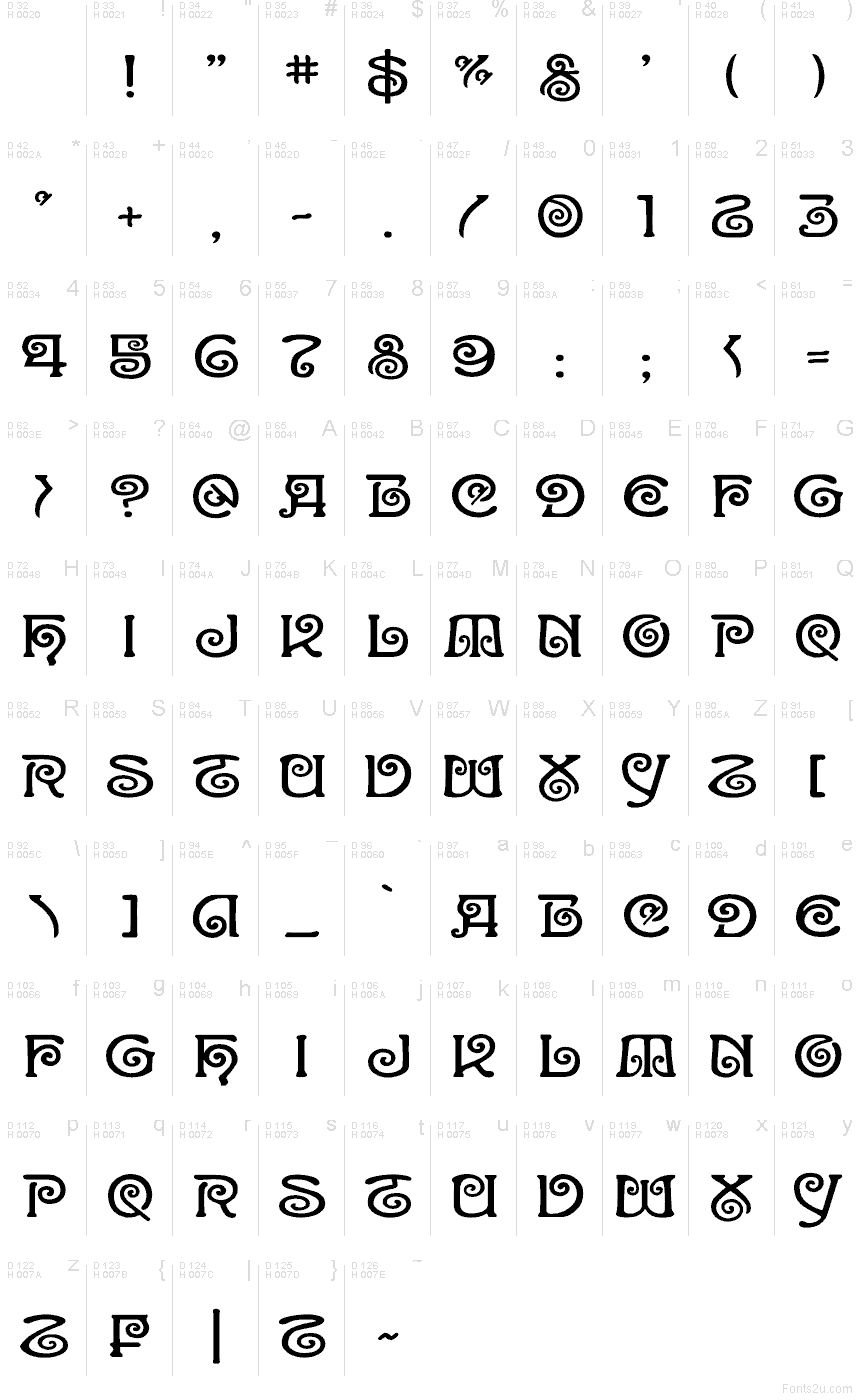
Swirl-a-Whirl Expanded by Iconian Fonts is a free curly display font with a playful retro spirit. The letters pair hefty, upright forms with oversized spiral flourishes that loop deep into the spaces around them, so the caps feel both sturdy and a little mischievous.
It works well anywhere the lettering needs to carry the mood - poster titles, party flyers, shop signs, album covers, and short packaging names all suit this free font. Because the curls do so much of the talking, it is especially at home in brief headlines, title cards, and monograms where those big swirls can stay open and visible.
Swirl-a-Whirl Expanded
Daniel Zadorozny